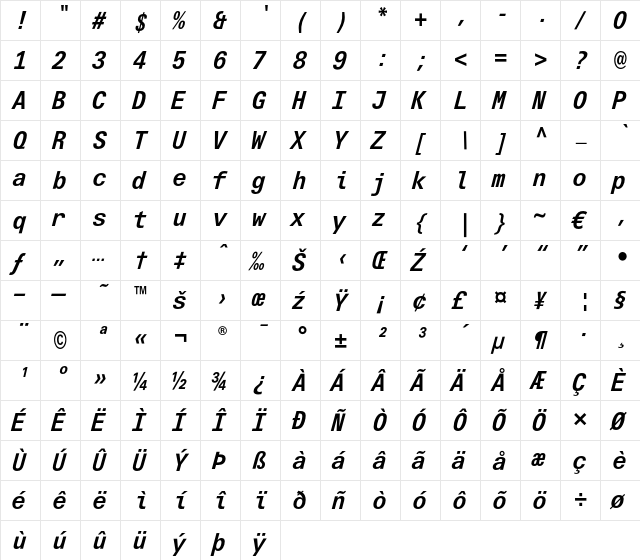
LTUnivers Typewriter BoldIt
Design Context for LTUnivers Typeface
LTUnivers brings the precise, column-aligned rhythm of monospaced typography to designs that value technical clarity and systematic order. The heavy weight commands attention and anchors typographic hierarchies.
Pro Tip: Pair LTUnivers with a proportional sans for UI contexts where code-style labels and regular body copy need to coexist.